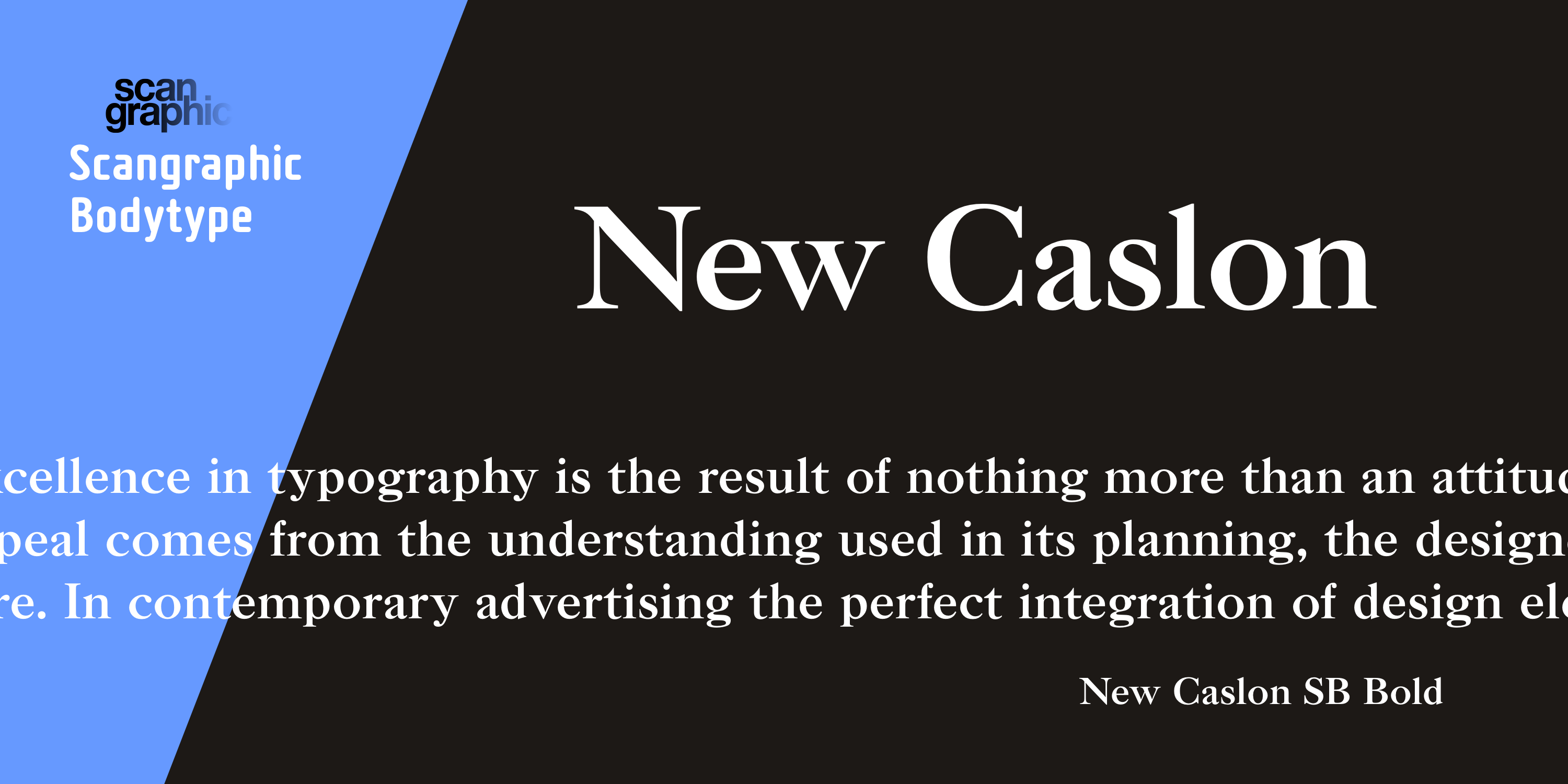
New Caslon SB Font is perfect for prestigious law firms, classical publishing houses, traditional academic institutions, constitutional museums, historical document preservation societies, distinguished literary journals, and refined cultural foundations. This distinguished typeface embodies American colonial heritage and classical typography excellence, bringing historical authority and timeless elegance to any design project celebrating constitutional democracy and traditional scholarly pursuits.
What makes New Caslon SB Font exciting is its masterful recreation of 18th-century typography principles and American colonial printing tradition that perfectly captures the essence of foundational democratic documents and classical scholarly excellence. The font features refined letterforms with colonial-era proportions and constitutional character details that evoke both the dignity of the Declaration of Independence and the scholarly precision of early American printing. Its authoritative character appeals to academic audiences while maintaining exceptional readability for both historical documentation and contemporary legal applications.
The New Caslon SB Font family includes comprehensive weight variations with matching italic styles and colonial ornamental elements. The character set features classical ligatures, constitutional symbols, scholarly alternates, and traditional decorative accents that enhance the font's prestigious appeal. Advanced OpenType features include historical character variations and multilingual support for international academic institutions and constitutional scholarship applications.
Whether you're designing constitutional law brands, creating scholarly publication materials, or developing historical education content, New Caslon SB Font Free Download provides exceptional scholarly credibility and versatility. This distinguished typeface transforms ordinary text into authoritative historical experiences that honor democratic traditions while establishing respected recognition in competitive legal services and academic publishing marketplaces.